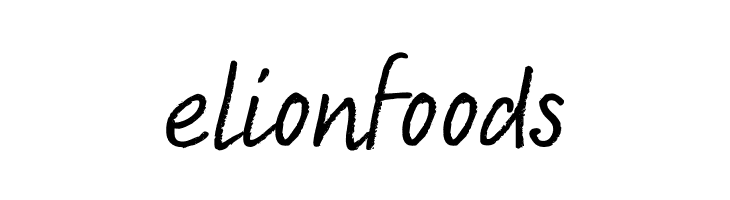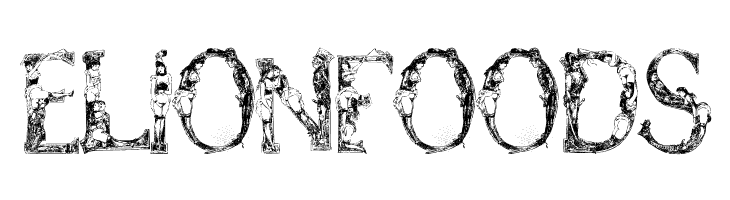
• DJB Color Me Chic
A playful, casual handwritten font with fluid strokes and a natural flow.
• HayleysFont
• HighBoat
A flowing, cursive script font with a natural handwritten style.
• WildThang
A playful, casual handwritten font with a natural, organic feel.
• DJB ROOM MOTHER script
A playful, cursive script font with a natural, handwritten style.
• DKAbelia
• Apoux
A rugged, textured font with a natural, distressed appearance.
• CF Civilisation Maya Regular
A decorative font with intricate, Mayan-inspired patterns.
• Gaze
A decorative, geometric font with a technical and architectural style.
• CF Azteques Regular
A decorative font inspired by Aztec art, featuring intricate patterns.